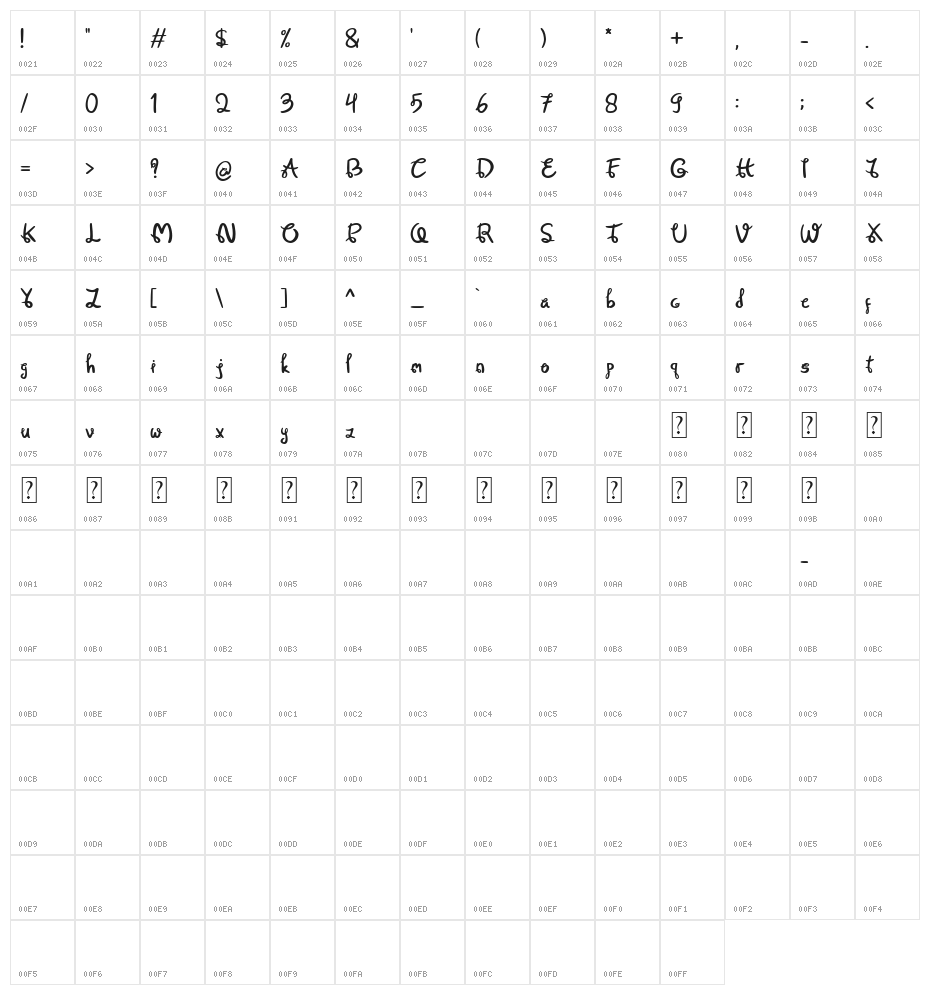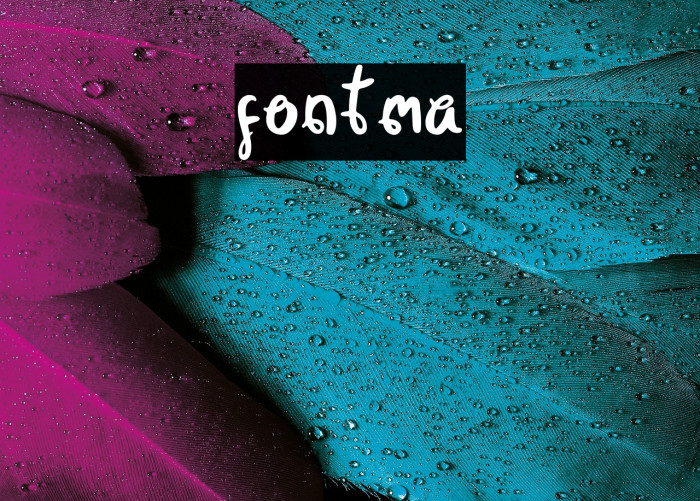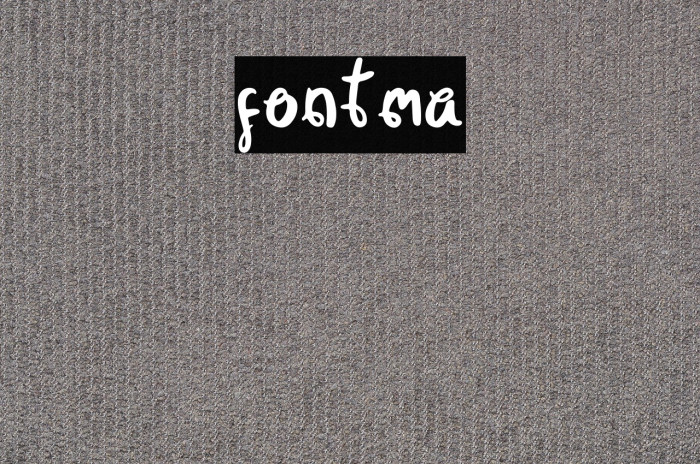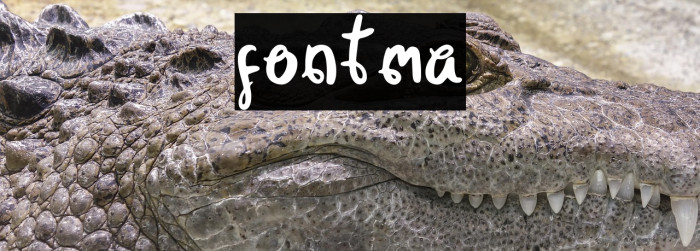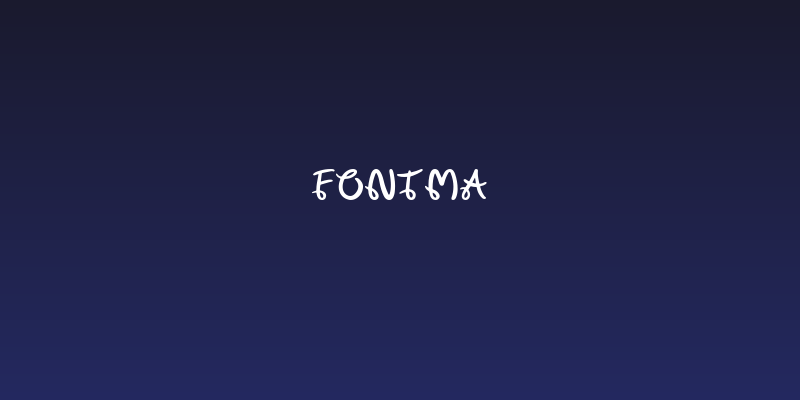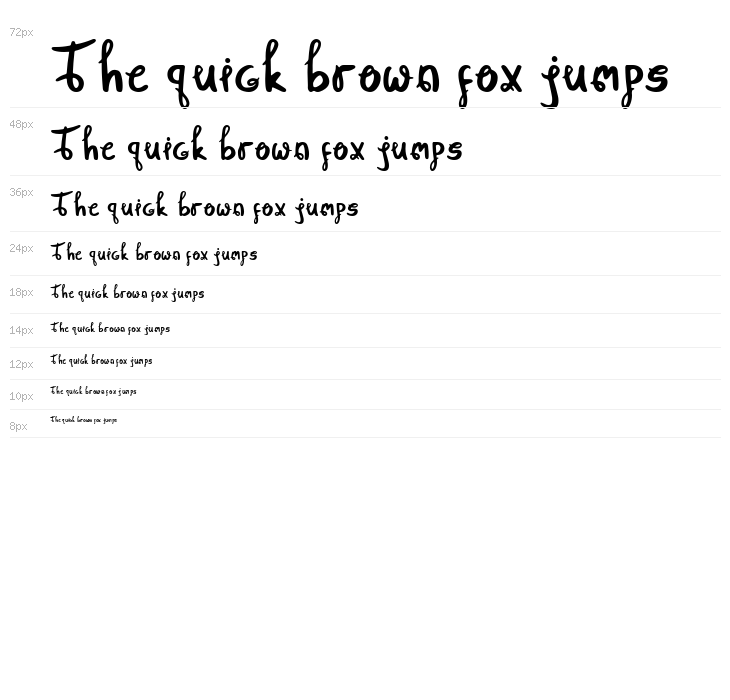
fontma Font
fontma Description
This font features a playful and whimsical style with a handwritten appearance. The characters are adorned with unique curls and loops, giving it a lively and dynamic feel. The uppercase letters are bold and expressive, while the lowercase letters maintain a consistent flow, enhancing its casual charm. Numbers and special characters are crafted with the same playful touch, making them stand out. The overall design is both artistic and approachable, suitable for projects that require a personal and friendly tone.
| Proposed Projects | Ideal for greeting cards, children's books, playful branding, and creative invitations. |